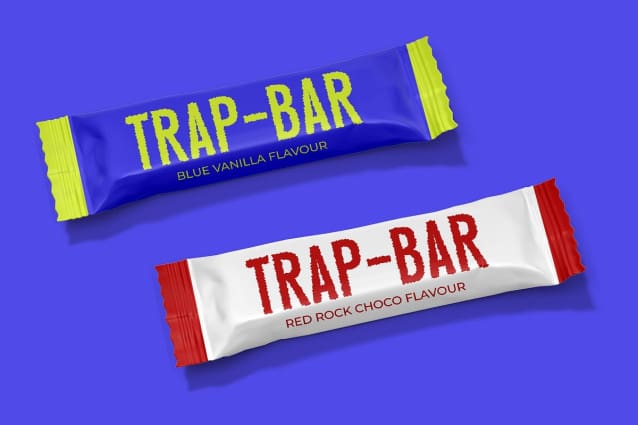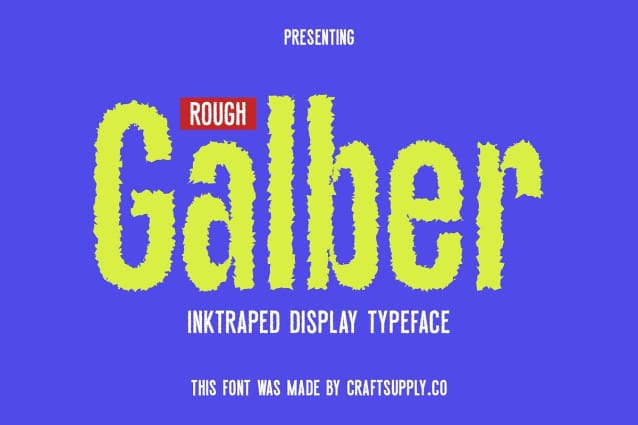
Galber Rough Font
Galber Rough Font is a modern sans-serif font that features a condensed form, combining slim, compact letters with a distinctive rough effect. Its narrow design ensures a contemporary look, while the rough texture adds unique character and visual depth, making it stand out in various design contexts.
Bold and Efficient The font’s clean lines and condensed shape offer efficiency and readability, making it ideal for designs that require a bold presence in limited spaces. The rough effect introduces an edgy, textured element that enhances the font’s visual impact, perfect for branding, posters, and promotional materials aiming for a striking and memorable appearance.
Versatile for Distinctive Designs Galber Rough’s balance of modern, slim design and textured detail makes it versatile for a range of applications. Whether you’re working on dynamic marketing materials, eye-catching posters, or impactful branding, this font provides a sophisticated yet bold choice that captures attention and adds character to your projects.